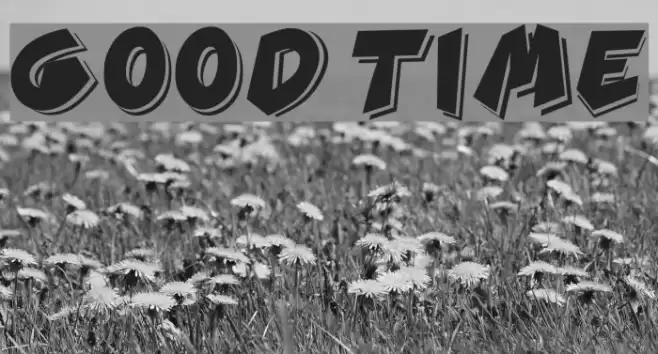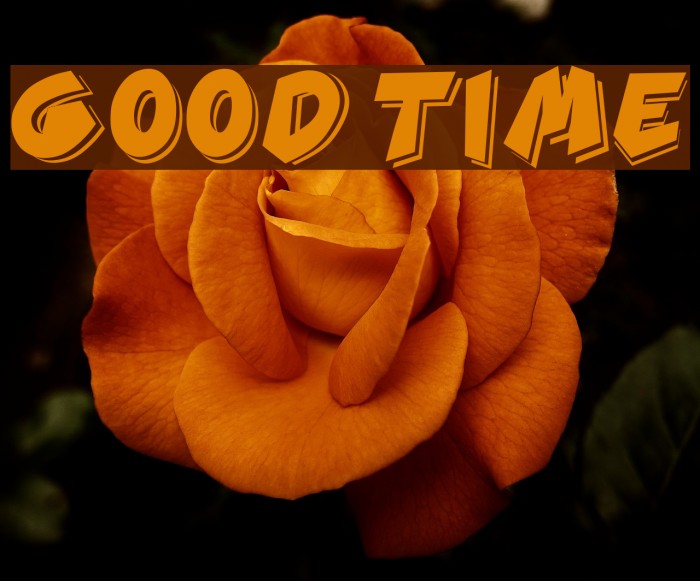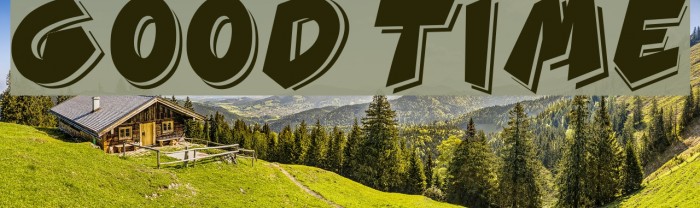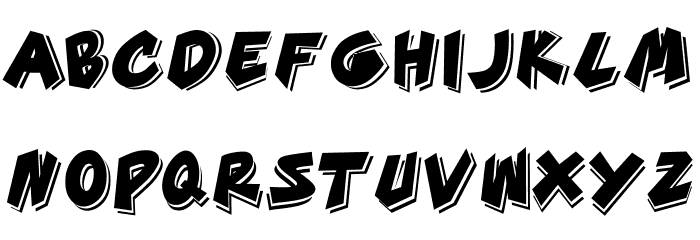
GOOD TIME Font
GOOD TIME Description
This font features a bold, playful design with a three-dimensional effect that gives it a dynamic and energetic appearance. The letters are uppercase and have a shadow effect that adds depth and a sense of movement. The style is reminiscent of comic book lettering, making it ideal for projects that require a fun and engaging look. The characters are well-spaced, ensuring readability while maintaining a lively aesthetic. The font's boldness and unique style make it stand out, perfect for capturing attention in various creative applications.
A bold, playful font with a 3D comic book style and shadow effect from Cartoon fonts.
- Proposed Projects: Ideal for comic books, children's books, posters, and playful branding.